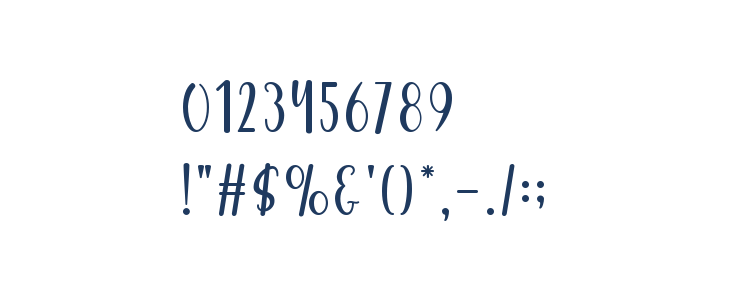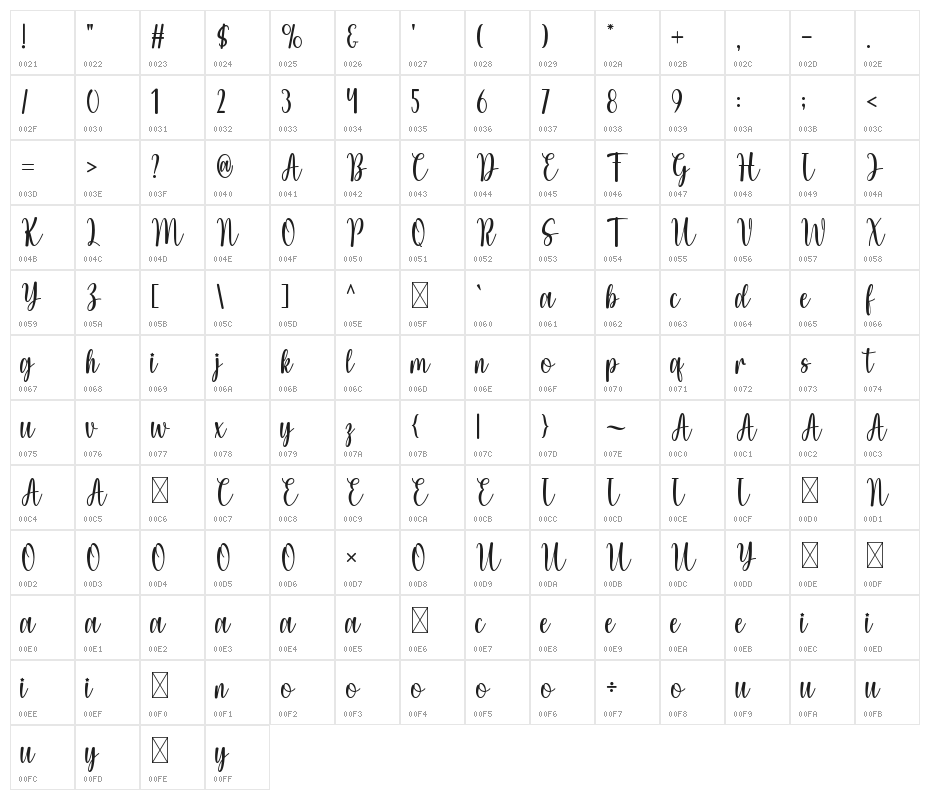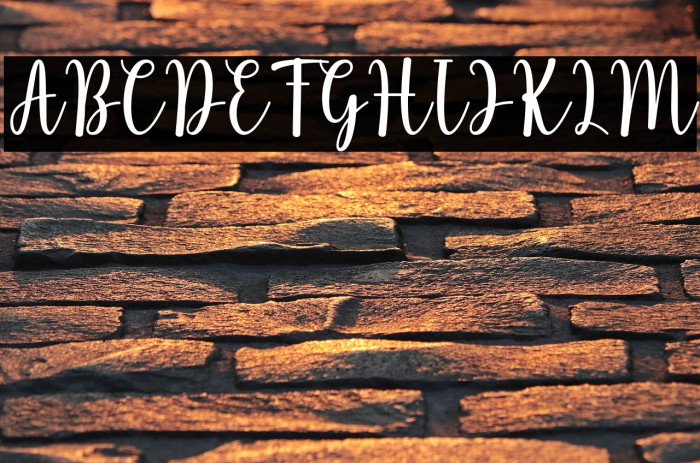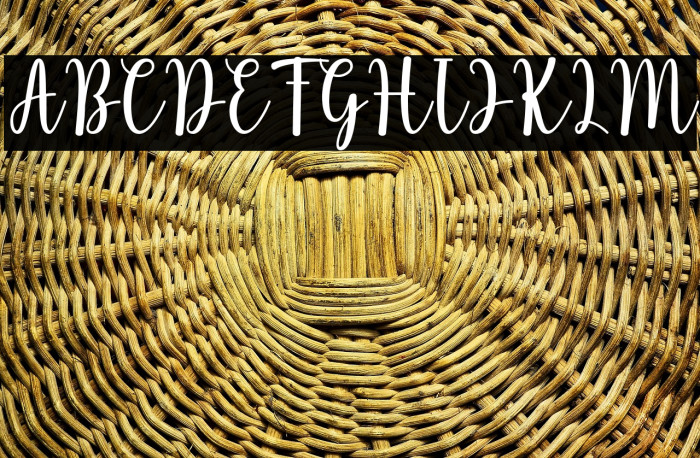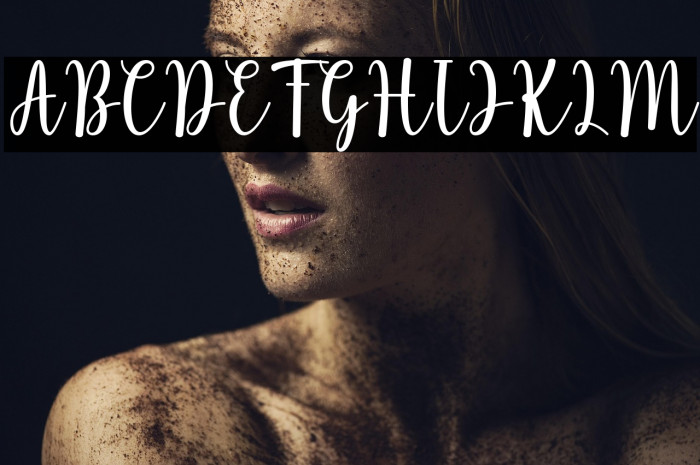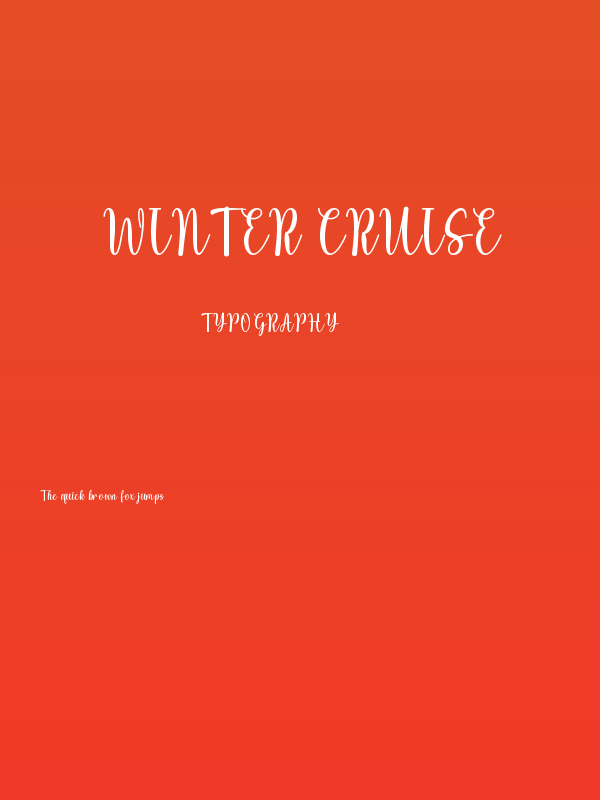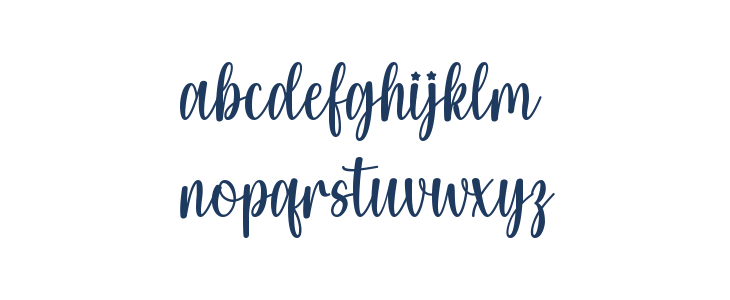
Winter Cruise Font
Winter Cruise Description
This font features a playful and elegant script style with a handwritten feel. The uppercase letters are characterized by their flowing, cursive strokes, while the lowercase letters maintain a consistent, smooth appearance. The numerals are clear and easy to read, complementing the overall style. Special characters are designed with the same fluidity, adding to the font's cohesive look. The strokes vary slightly in thickness, providing a subtle contrast that enhances readability without compromising the decorative nature of the font.
| Use Case | Logos, Invitations, Social Media |
| Proposed Projects | Ideal for wedding invitations, greeting cards, branding projects, and social media graphics. |